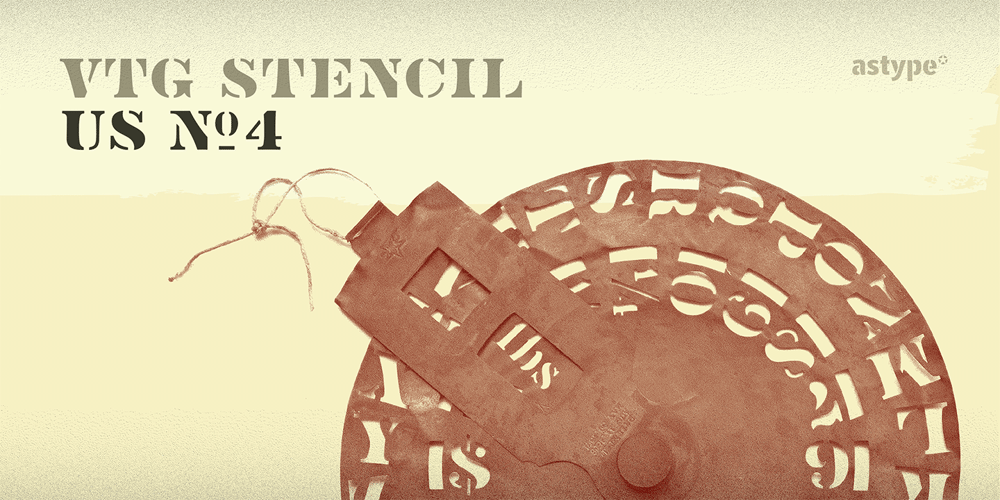
Vtg Stencil US No. 4 Font Family was designed by Andreas Seidel and published by astype. Vtg Stencil US No. 4 contains 3 styles and family package options. The Vtg Stencil fonts from astype are based on real world stencils from several countries. The US No. 4 design was derived from a typical antique US-American stencil-plate. This revolving stencil-plate was invented by Eugene L. Tarbox and patented in 1868. It was a mass factored product and a very common tool in the United States until the success of the interlocking stencils. In case of US No. 4 an original early stencil plate from New York Stencil Works was used. The Regular font style is a clean font design featuring an extended Latin glyph set including some typical stencil ornaments and tabular figures. The Paint font style is made from true stenciled letters and features all the letters of the stencil-plate only. If you like the later interlocking design have a look to my Vtg Stencil US No.2 font.More info: pdf specimen